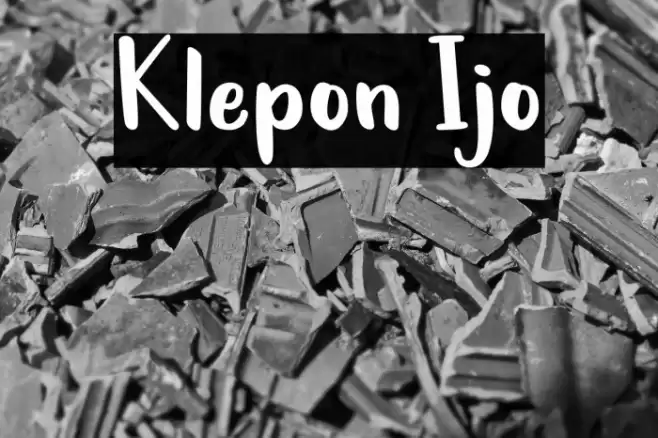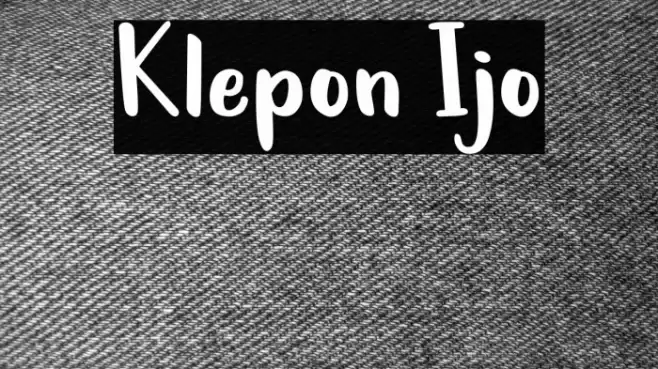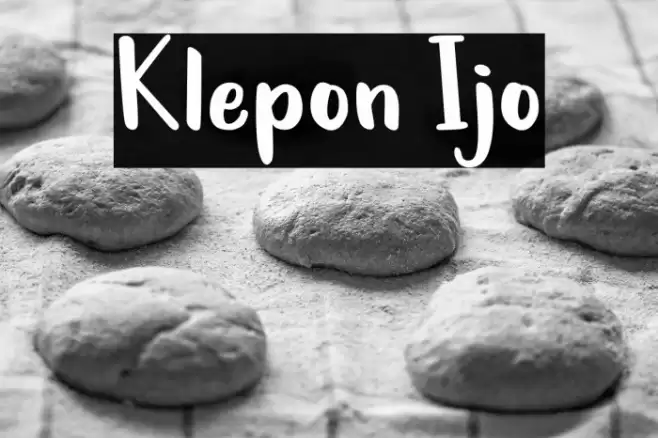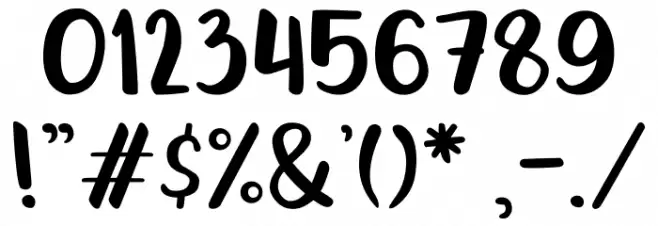
Klepon Ijo Font
Klepon Ijo Description
This playful and whimsical font features a hand-drawn style with a casual, friendly appearance. The characters are bold and rounded, with a slightly irregular baseline that adds to its charm. The uppercase letters are tall and slightly narrow, while the lowercase letters are more rounded and compact. The numbers and special characters maintain the same playful aesthetic, making the font versatile for various creative projects. Its unique style is perfect for designs that require a personal touch, such as invitations, greeting cards, or children's book covers.
A playful, hand-drawn font with a bold, rounded style and a whimsical touch from Uncategorized fonts.
- Proposed Projects: Ideal for invitations, greeting cards, children's books, and playful branding projects.
- Use Case: Logos, Headlines, Invitations